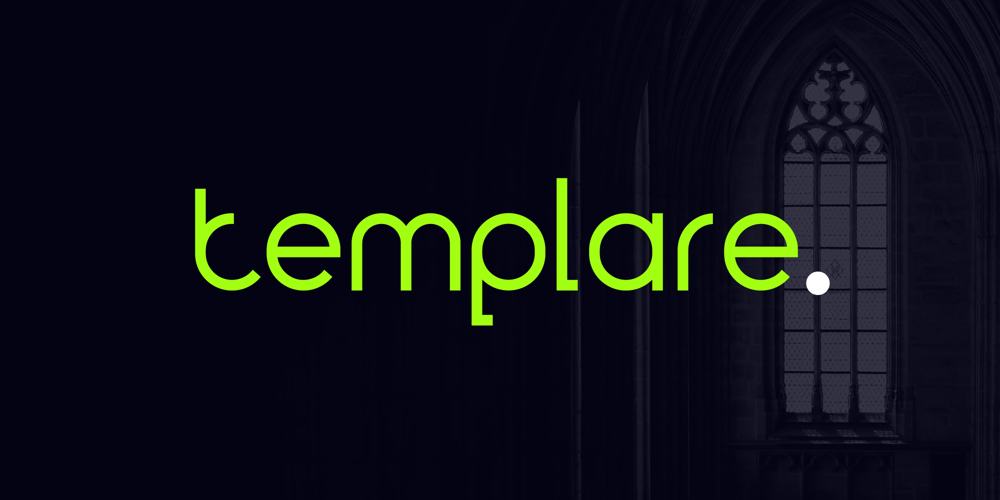
Templare Font Family was designed by Iwan Alwan and published by Artiveko. Templare contains 2 styles and family package options. Templare is a minimalist sans serif font created by Iwan Alwan. It features a unique design with variations in both uppercase and lowercase characters, offering a modern yet distinctive look. Templare supports multiple languages, making it versatile for various projects. Its clean lines and elegant simplicity make it ideal for branding, web design, and print media, providing a stylish and professional touch to any text.